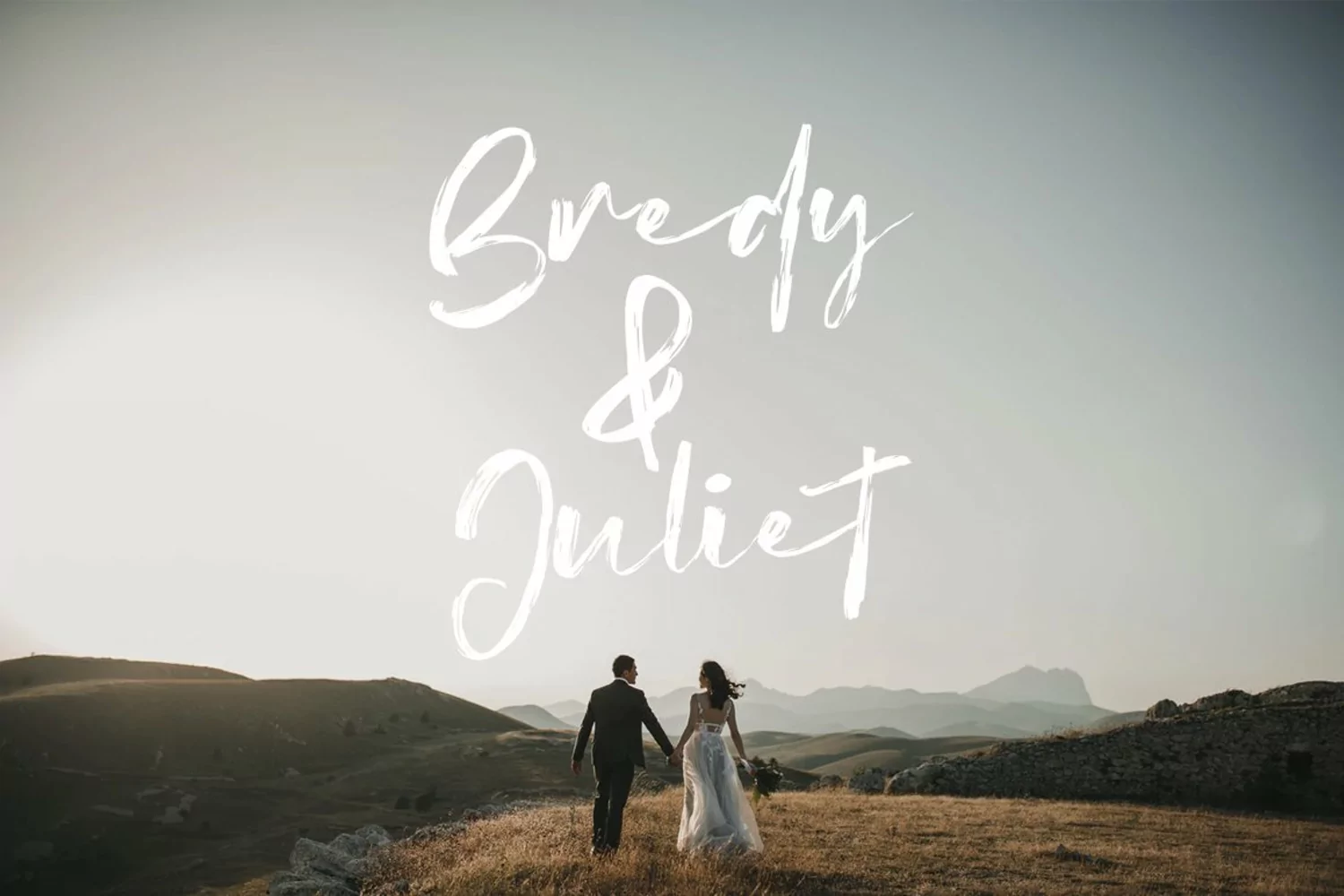
Haglos - Bold Script Font
Boldris Signature Font is minimalistic script with beautiful ligature and alternate font.
Contemporary handwriting fonts with ligatures and alternative styles ready to add unique look and bloom on your design